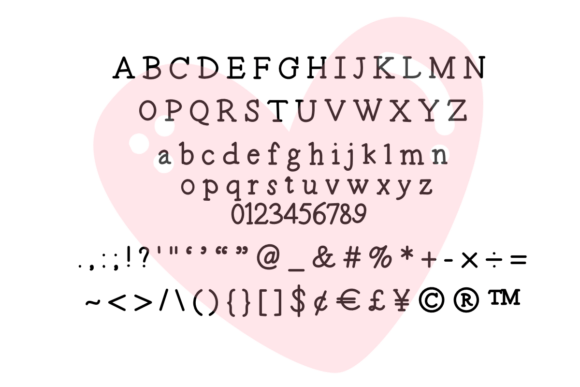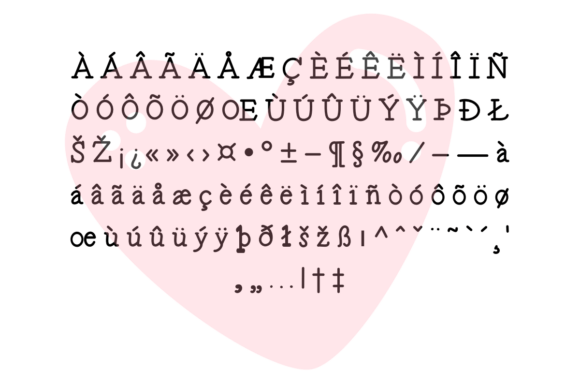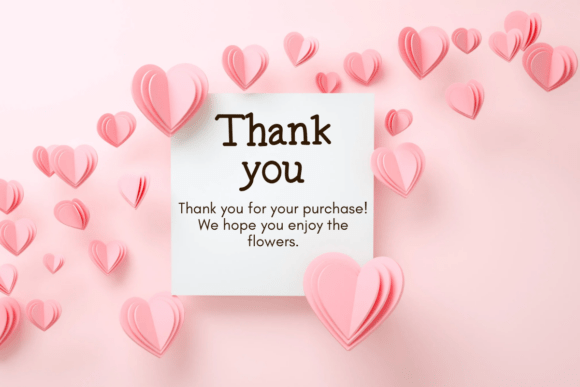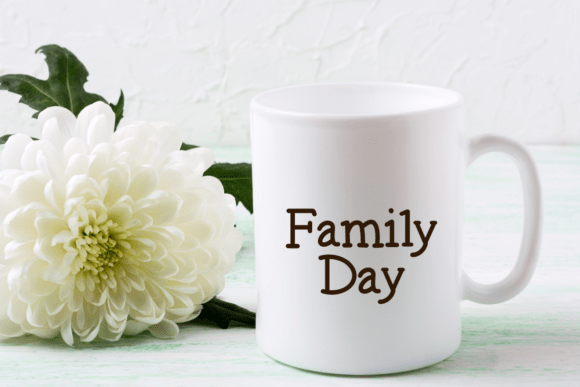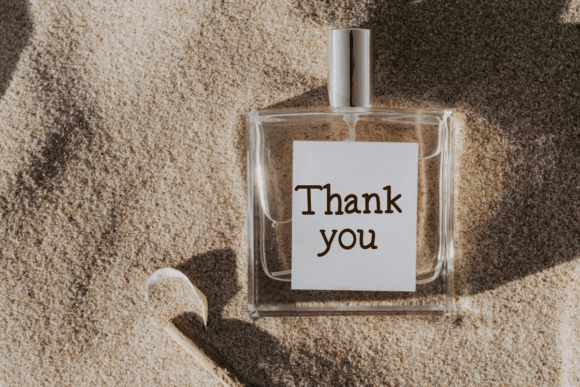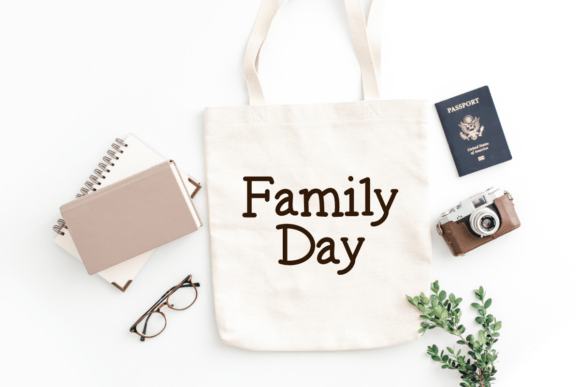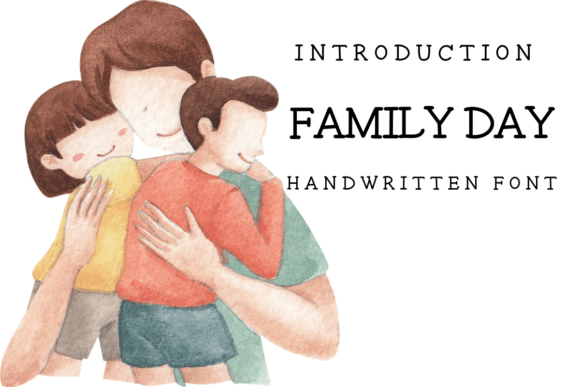
Introducing Family Day Font: A Natural Handwritten Delight
Are you on the lookout for a font that adds a personal touch to your designs? Look no further than the Family Day Font, a beautiful natural handwritten font that’s perfect for a variety of creative projects. In this article, we’ll dive into the features and uses of Family Day Font, and explore how it can elevate your designs.
What is Family Day Font?
Family Day Font is a unique and charming handwritten font that’s designed to mimic the natural flow of handwriting. With its organic and effortless feel, this font is ideal for adding a personal touch to your designs. Whether you’re a designer, crafter, or DIY enthusiast, Family Day Font is a versatile and user-friendly choice that’s sure to inspire.
Uses of Family Day Font
So, what can you use Family Day Font for? The possibilities are endless! Here are some ideas to get you started:
• Note-taking and journaling: Add a personal touch to your notes and diary entries with Family Day Font. Its natural, handwritten feel makes it perfect for jotting down thoughts, ideas, and inspiration.
• Greeting cards and invitations: Create beautiful and heartfelt greeting cards, invitations, and thank-you notes with Family Day Font. Its elegant and cursive feel makes it perfect for special occasions.
• Banners and signs: Use Family Day Font to create eye-catching banners and signs for parties, events, and special occasions. Its bold and playful feel is sure to grab attention.
• Content and social media posts: Add a personal touch to your blog posts, social media updates, and online content with Family Day Font. Its natural and engaging feel makes it perfect for connecting with your audience.
• Mugs, cards, and stationery: Create unique and personalized gifts, such as mugs, cards, and stationery, with Family Day Font. Its charming and handwritten feel makes it perfect for everyday use.
• Shirts and apparel: Use Family Day Font to create custom t-shirts, hoodies, and other apparel items. Its bold and playful feel makes it perfect for statement pieces.
Why Choose Family Day Font?
So, why choose Family Day Font over other fonts? Here are just a few reasons why designers and crafters love this font:
• Unique and charming: Family Day Font has a one-of-a-kind, handwritten feel that’s sure to add a personal touch to your designs.
• Versatile and adaptable: This font is perfect for a wide range of projects, from notes and journals to banners and social media posts.
• High-quality: This font is designed with high-quality and clarity in mind, ensuring that your designs look professional and polished.
Tips for Using Family Day Font
Here are a few tips for getting the most out of Family Day Font:
• Experiment with sizes and colors: Play around with different font sizes and colors to add visual interest and personality to your designs.
• Mix and match with other fonts: Combine Family Day Font with other fonts to create unique and eye-catching combinations.
• Use it for headings and titles: Use Family Day Font to add a personal touch to headings and titles, and to create visual interest in your designs.
• Add embellishments and graphics: Add embellishments and graphics to your designs to enhance the overall look and feel.
Family Day Font is a natural handwritten font that’s perfect for designers and crafters looking to add a personal touch to their projects. With its unique and charming feel, versatility, and ease of use, this font is sure to inspire creativity and elevate your designs. Whether you’re creating notes, greeting cards, banners, or social media posts, Family Day Font is a great choice for anyone looking to add a little personality to their work.